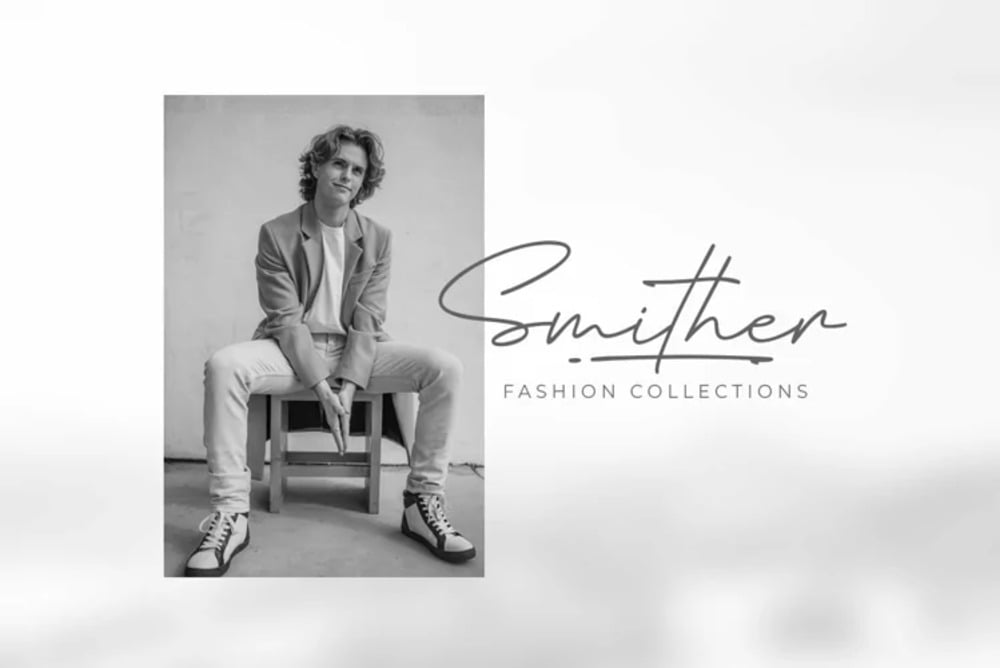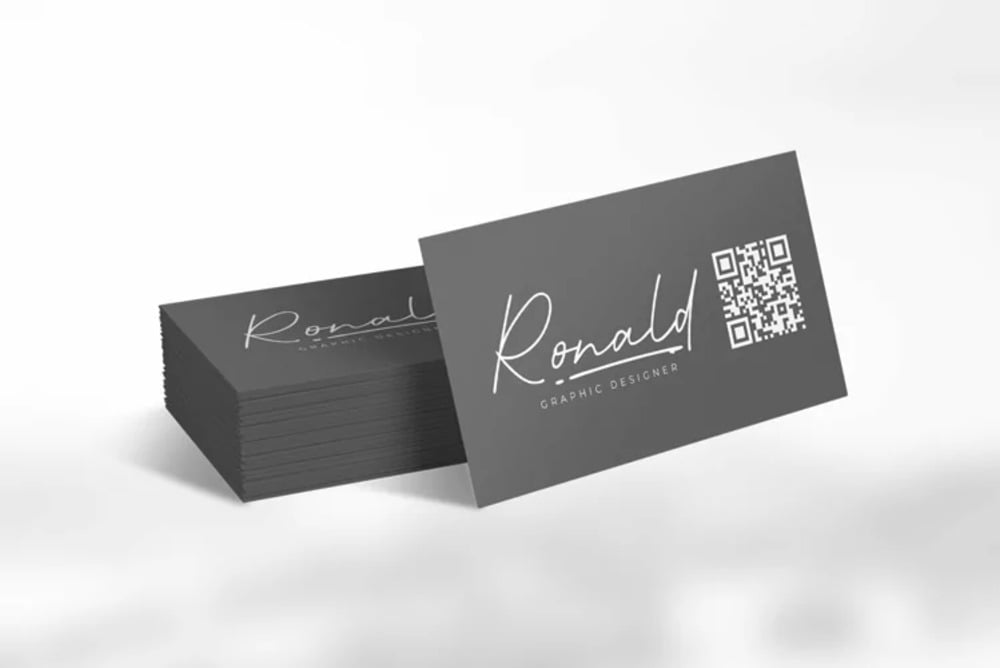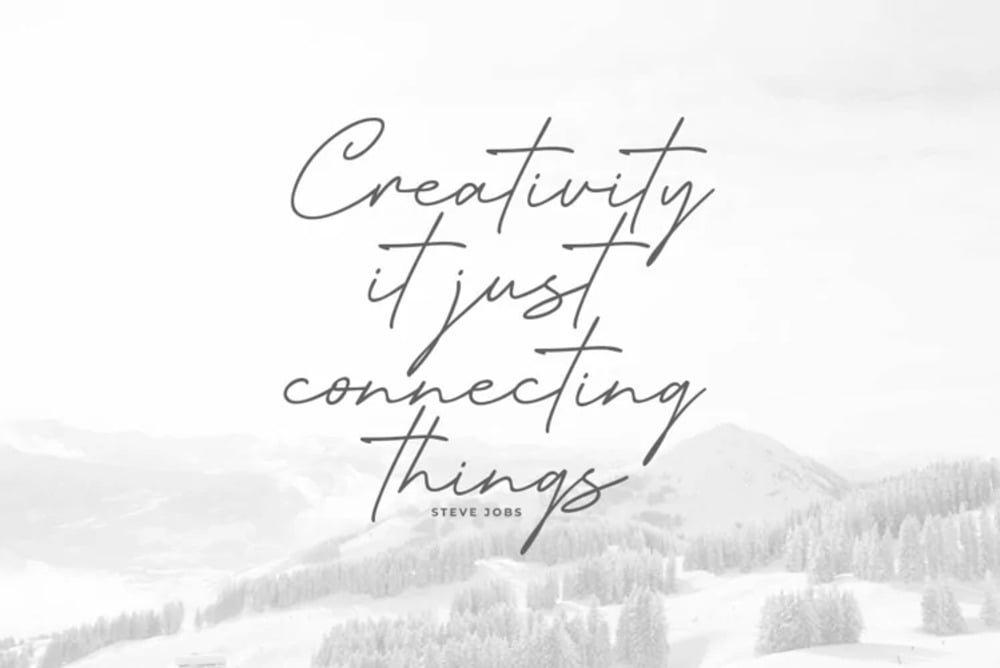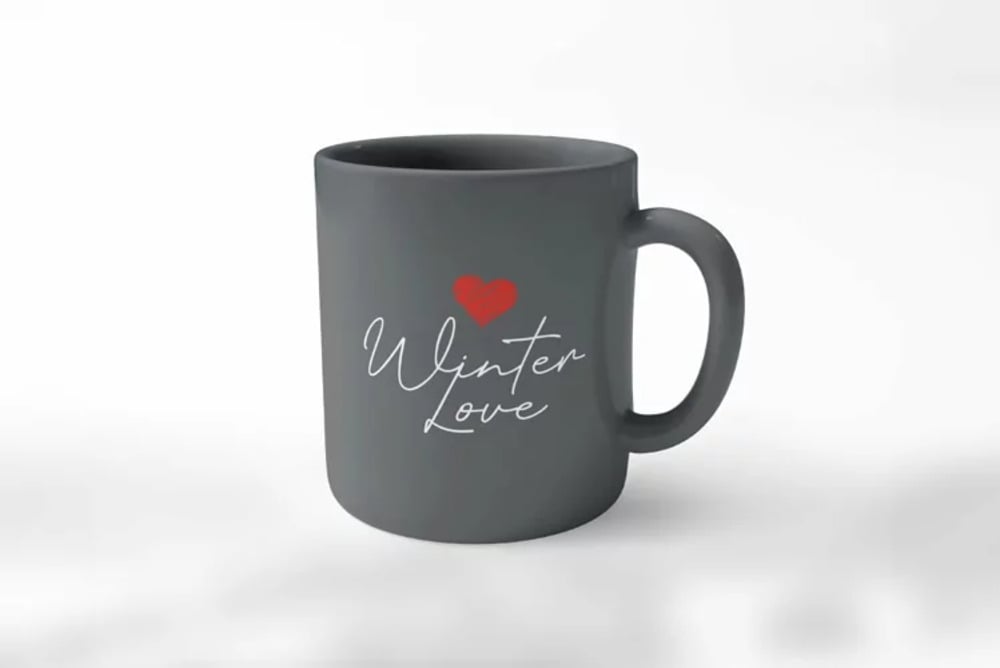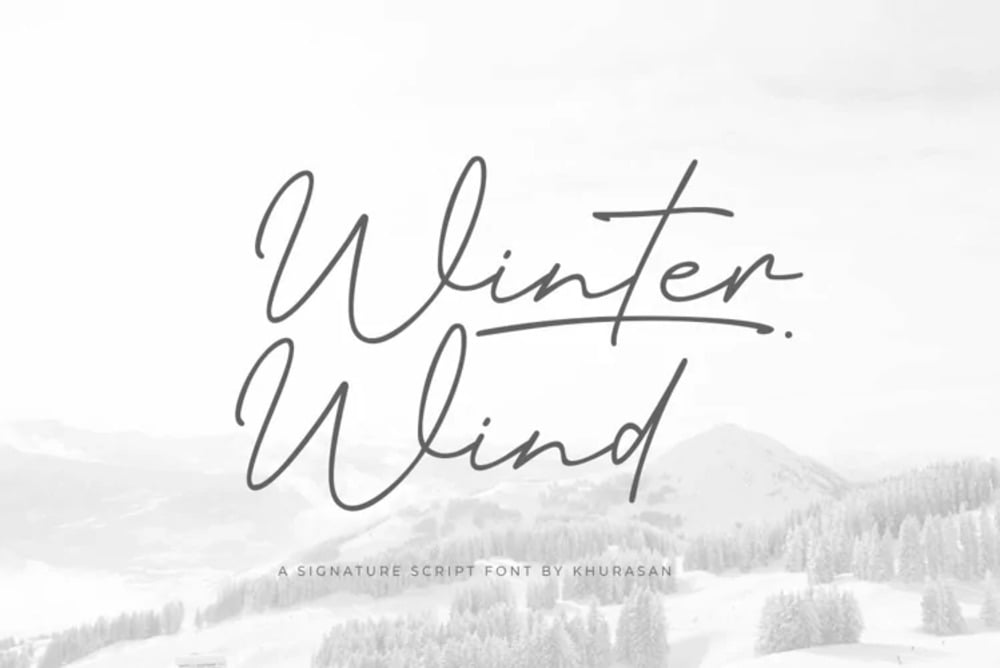
Winter Wind Font
Winter Wind Font is a delicate yet dynamic typeface inspired by the graceful flow of chilly breezes. With elegant strokes and a slightly whimsical touch, it evokes the serenity and movement of winter air. Perfect for seasonal designs, invitations, and branding, this font adds a frosty charm, making every word feel crisp, refreshing, and effortlessly stylish.